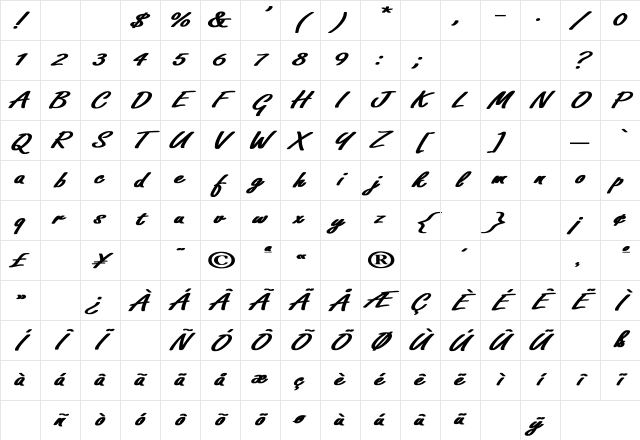
Freeport-Normal Ex Bold Bold
Design Context for Freeport-Normal Ex Bold
Freeport-Normal Ex Bold is a composed and adaptable typeface that performs quietly and consistently across a wide range of design contexts. Its bold stroke weight gives it real presence on the page.